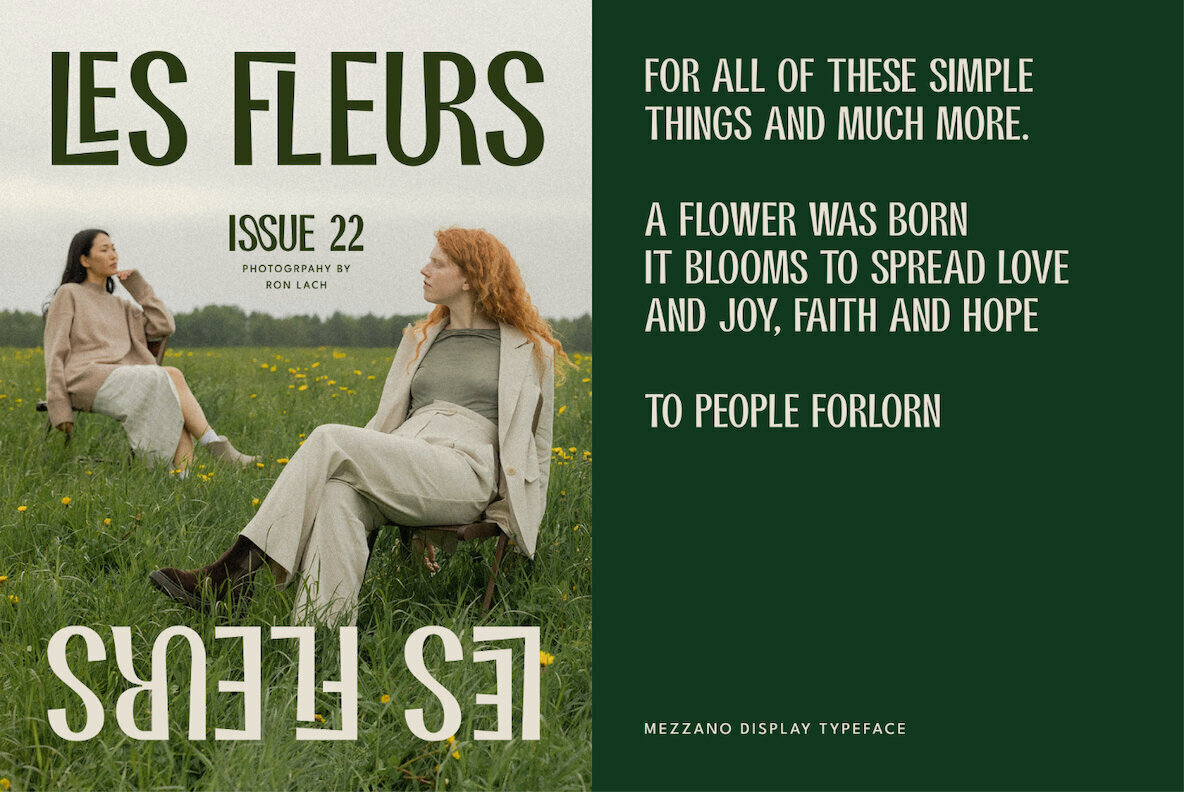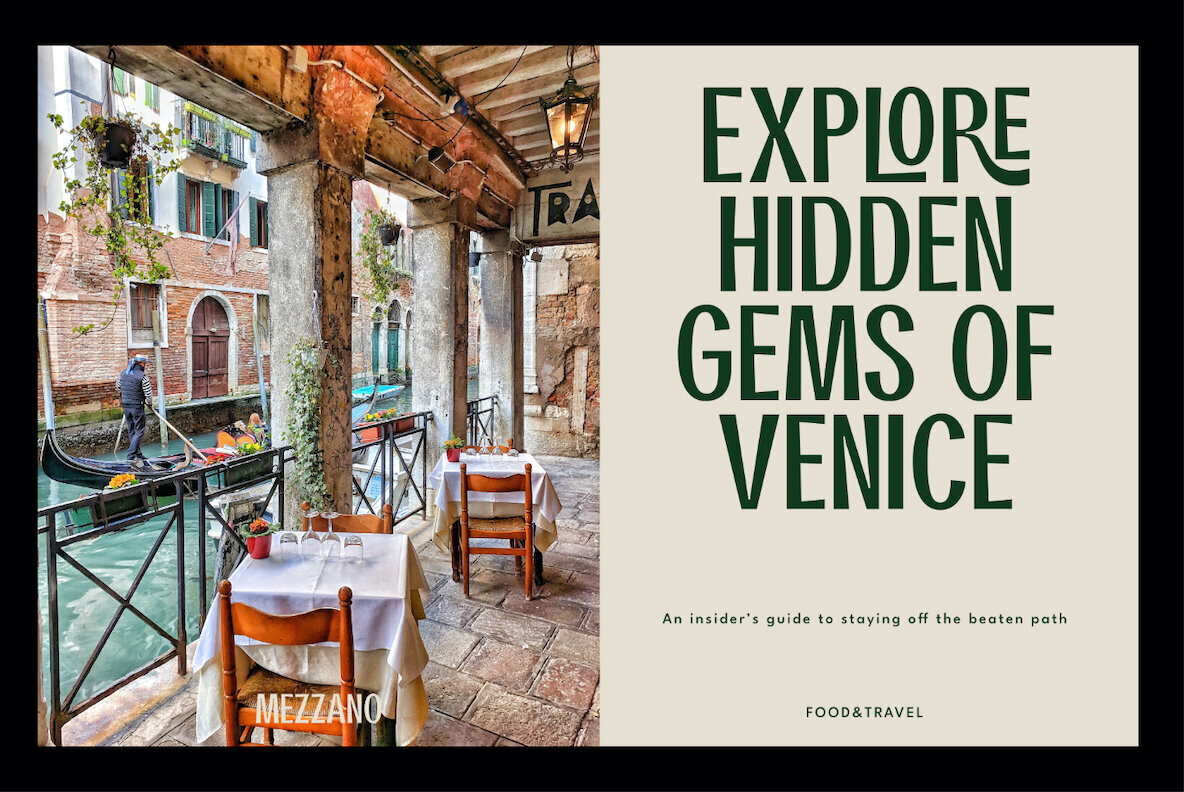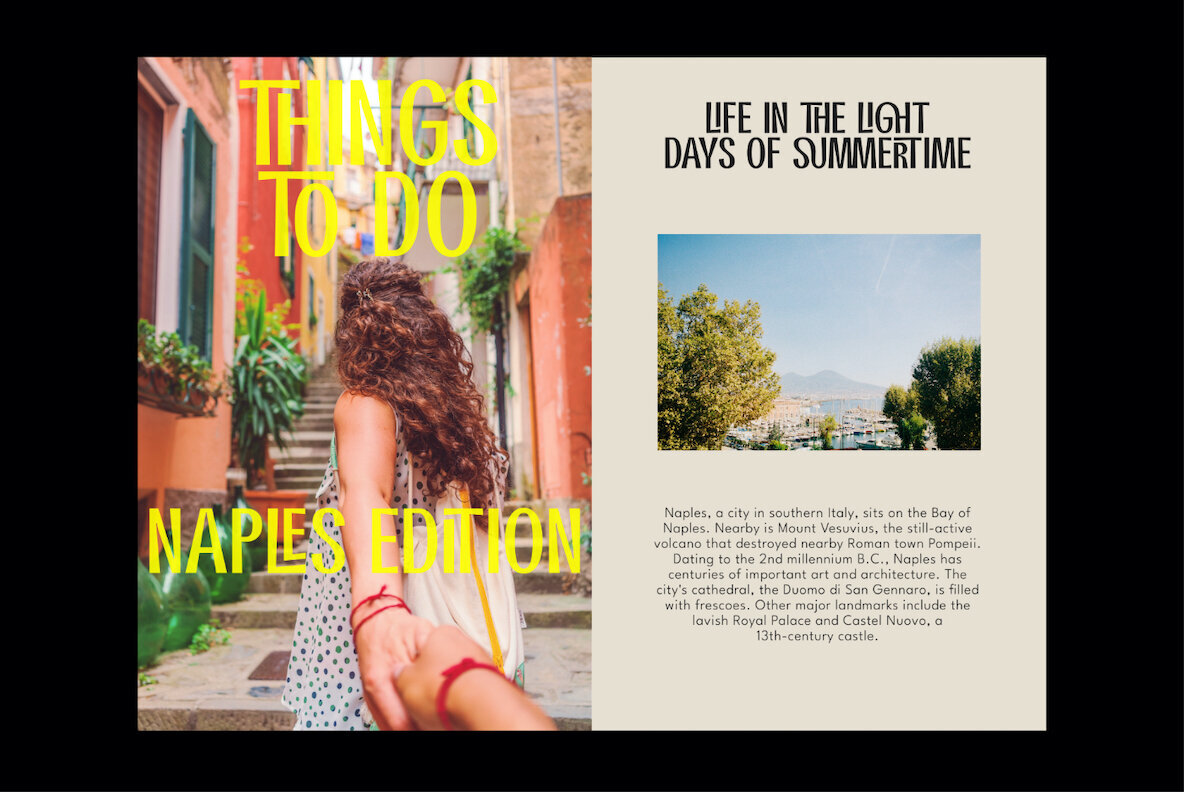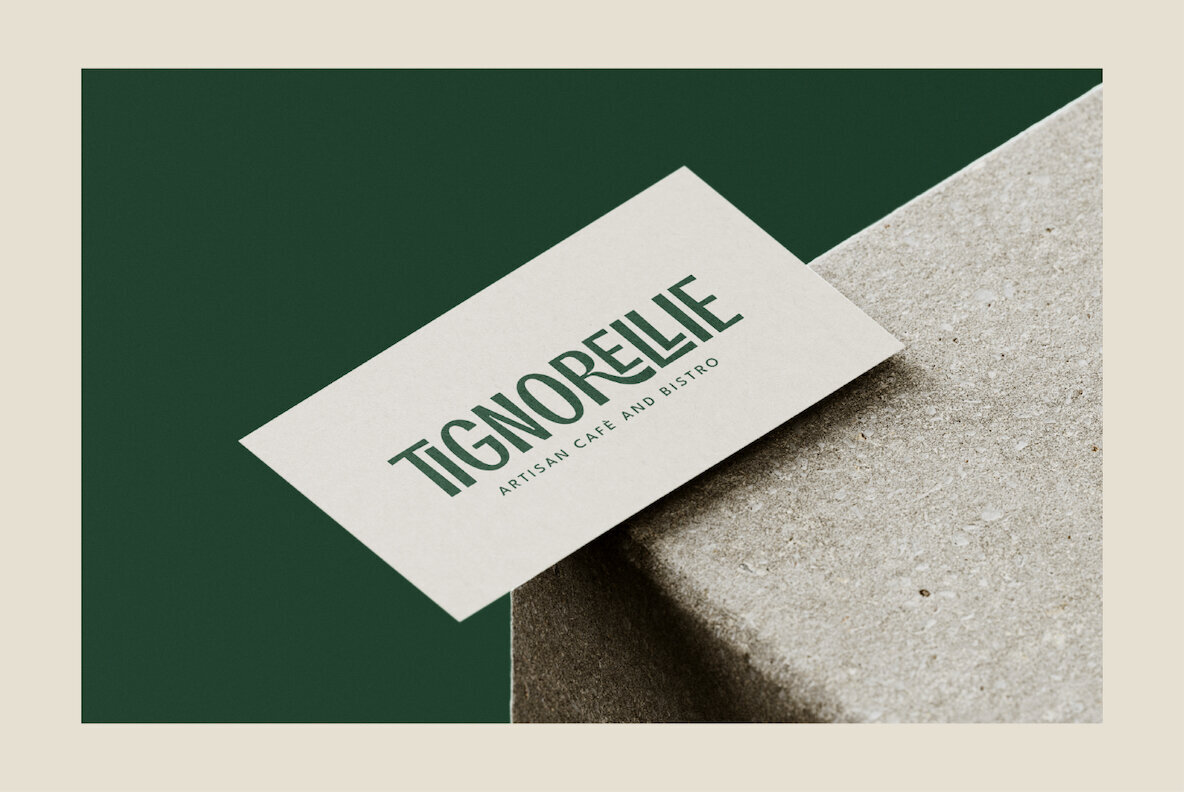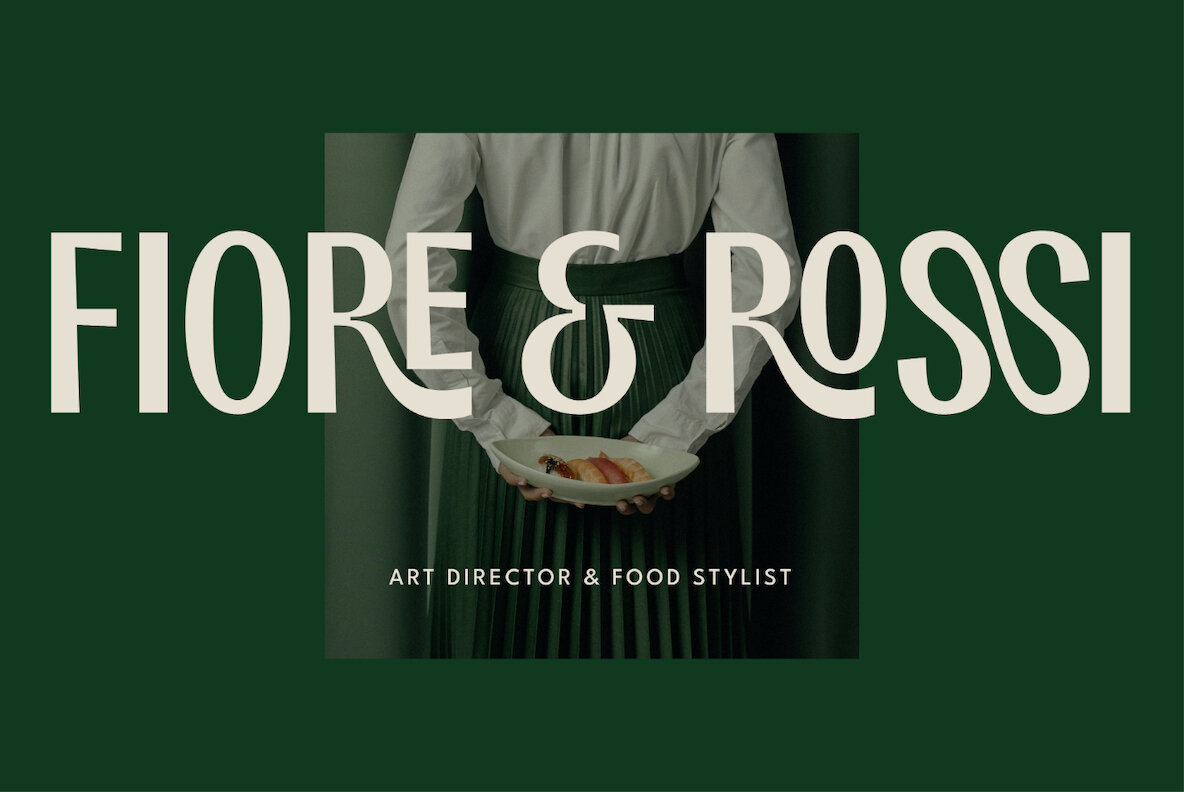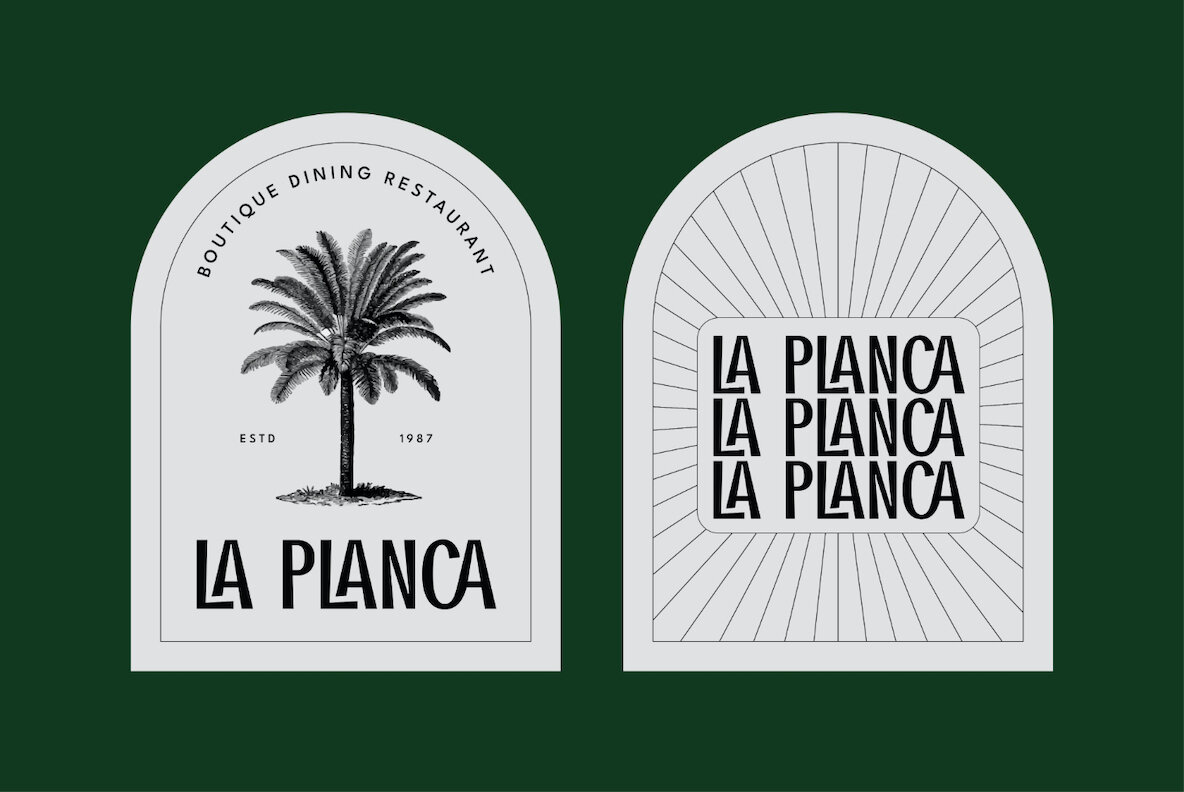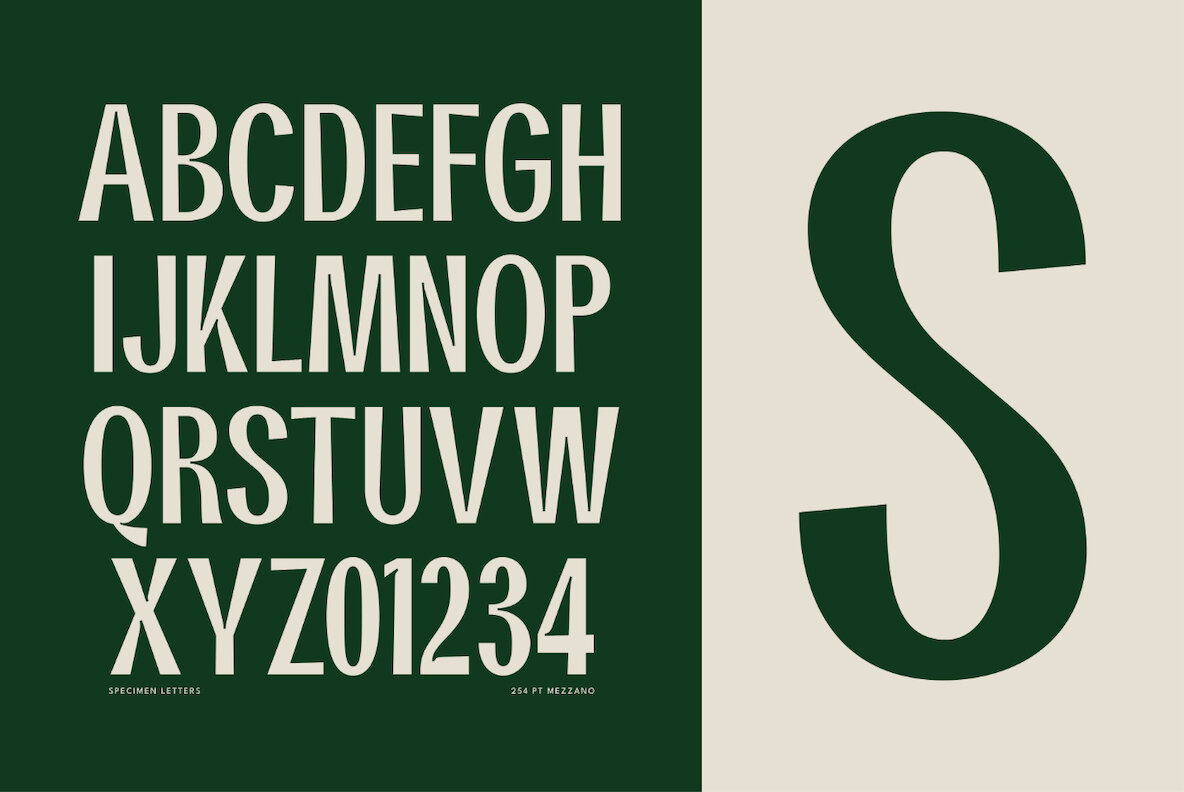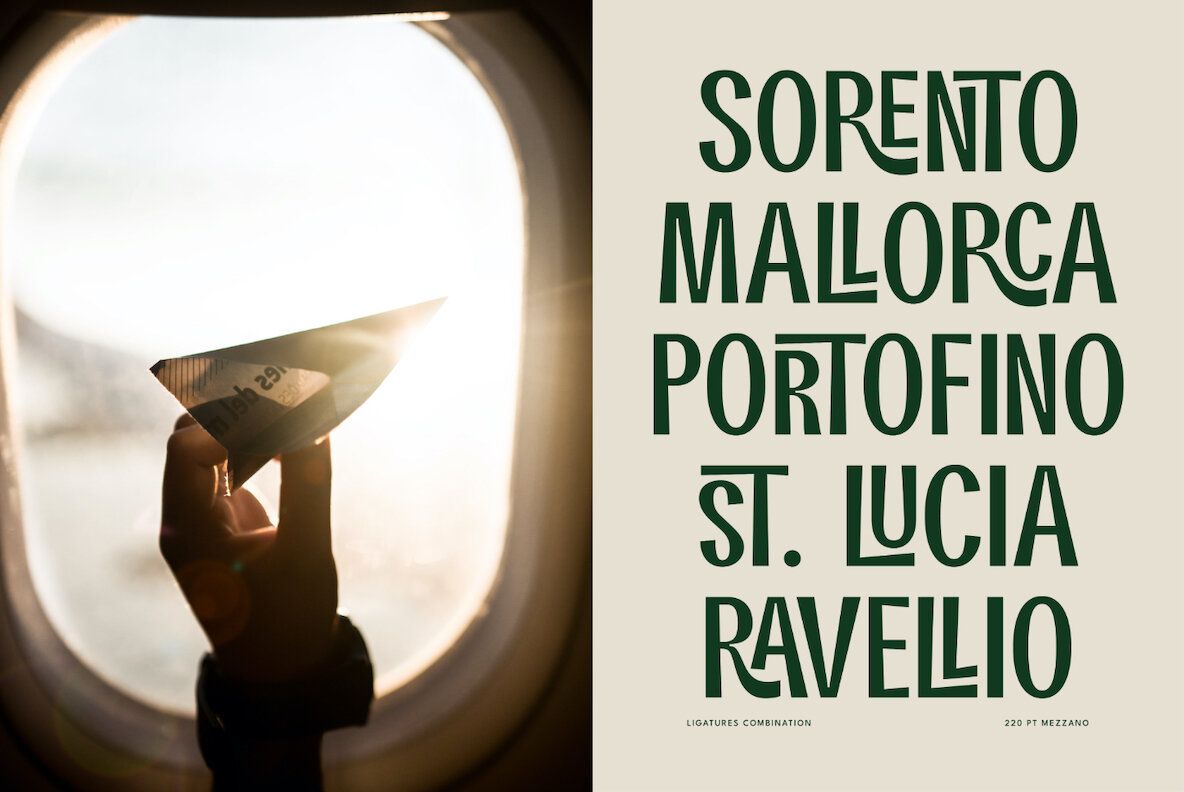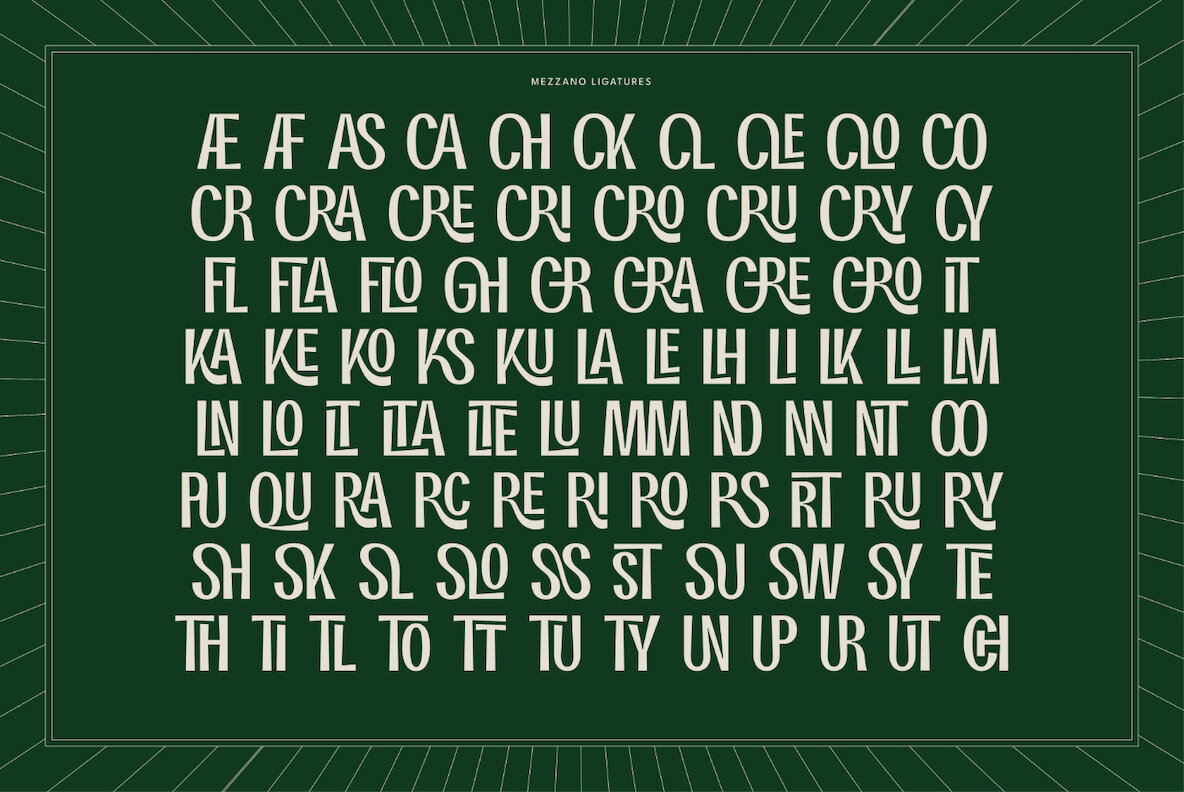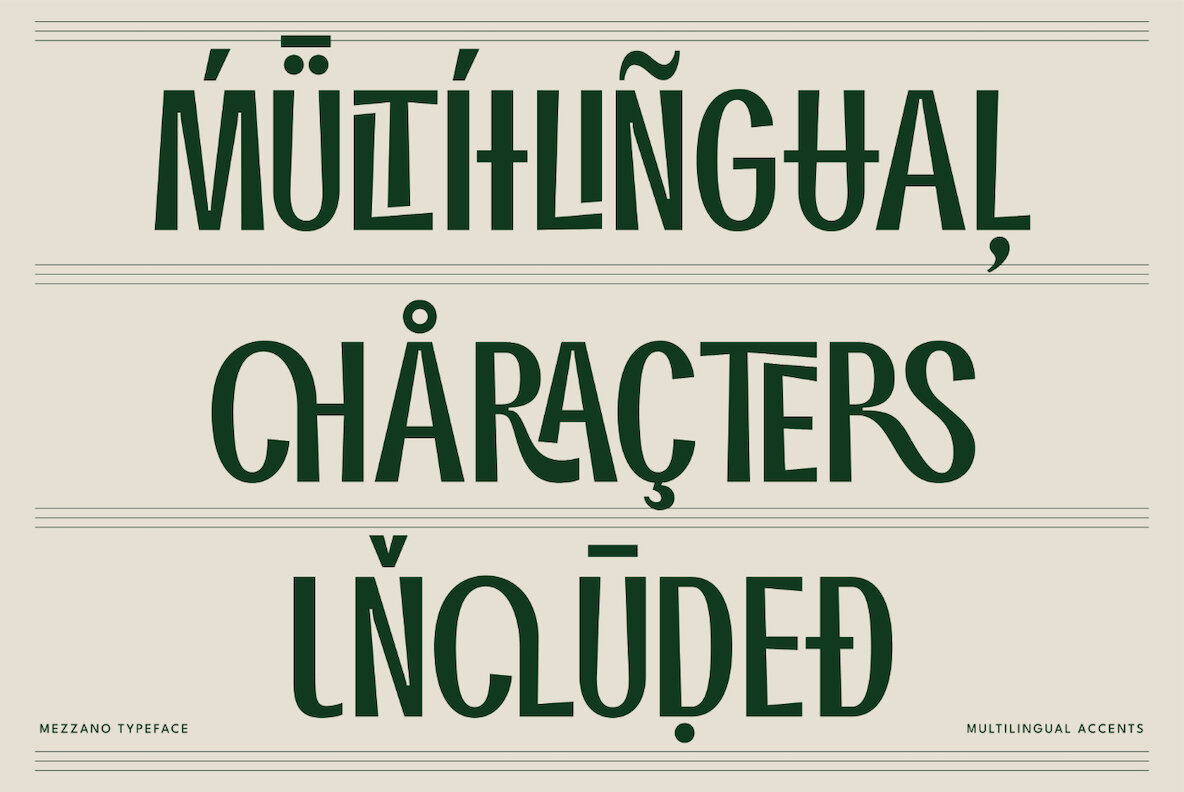
Mezzano is a classic retro-inspired sans serif display font - perfectly suited for any design that requires a timeless aesthetic with a little personality.
This product features an extensive set of ligatures which will help your typography stand out, as well as multilingual support to maximize the applications.
Perfect for editorial designs, web design projects, social content & much more!